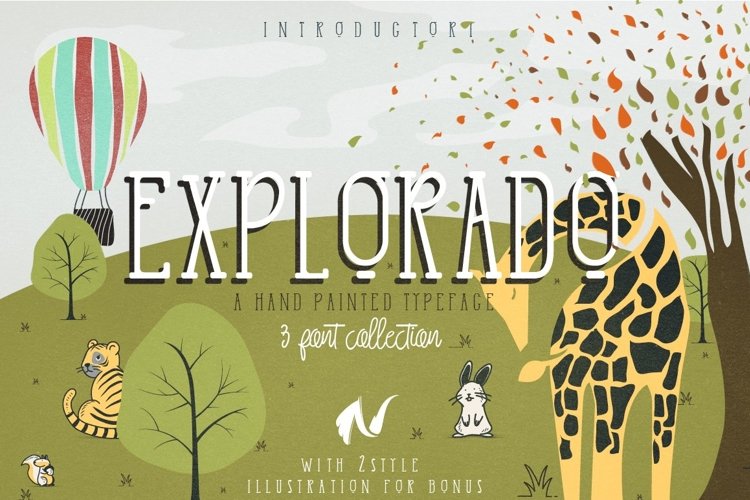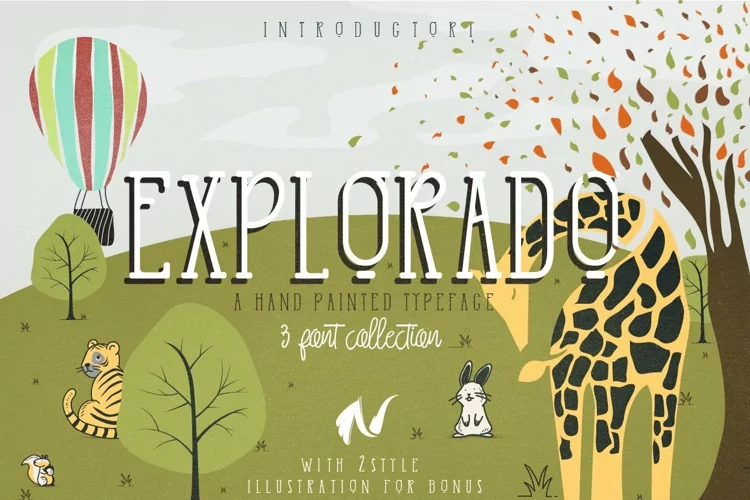
Explorado Typeface is a modern hand painted font. Explorado is stretches high, is thin and mixes serif, sans serif and script type fonts together in this collection of 3 fonts. WOFF are included for all 3 fonts and some super cute bonus illustrations are included also.